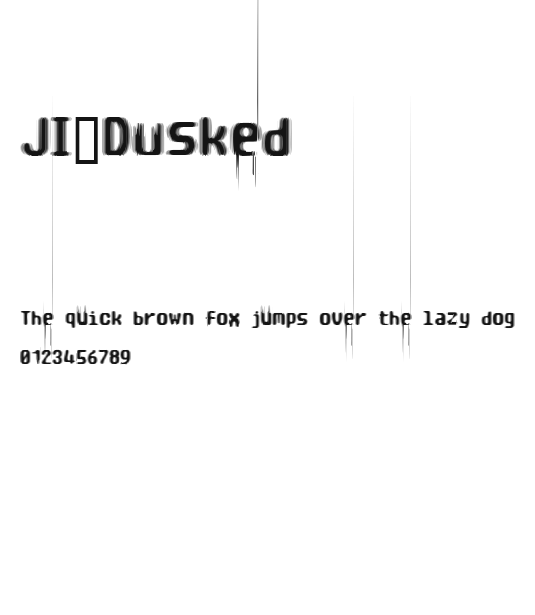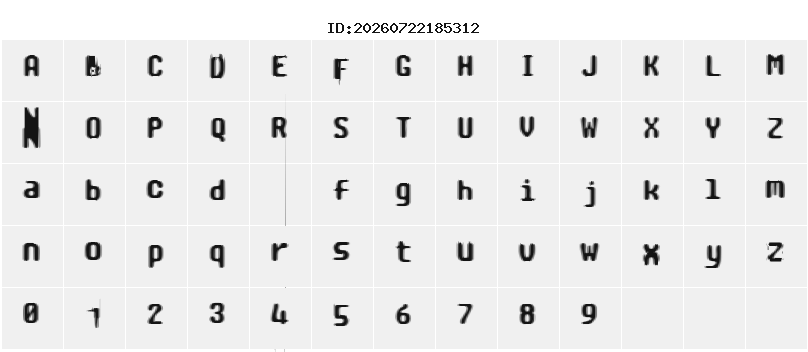
JI-Dusked Preview
About JI-Dusked.ttf
JI-Dusked.ttf is a modern, elegant sans-serif font designed for ultimate readability and visual harmony. Perfect for branding, headlines, web design, and print materials.